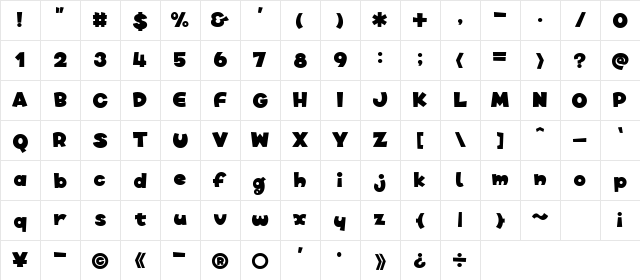
MinnanoUtaAL Regular
Design Context for MinnanoUtaAL Typeface
MinnanoUtaAL is a composed and adaptable typeface that performs quietly and consistently across a wide range of design contexts.